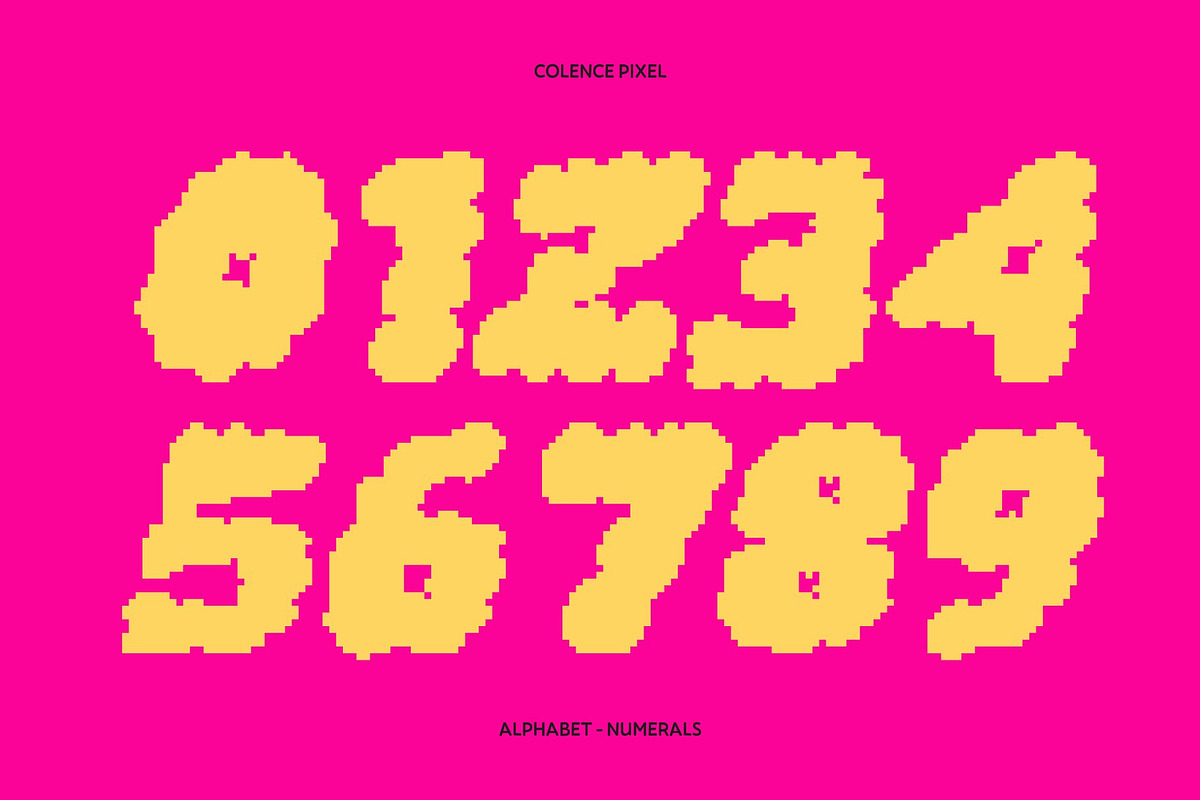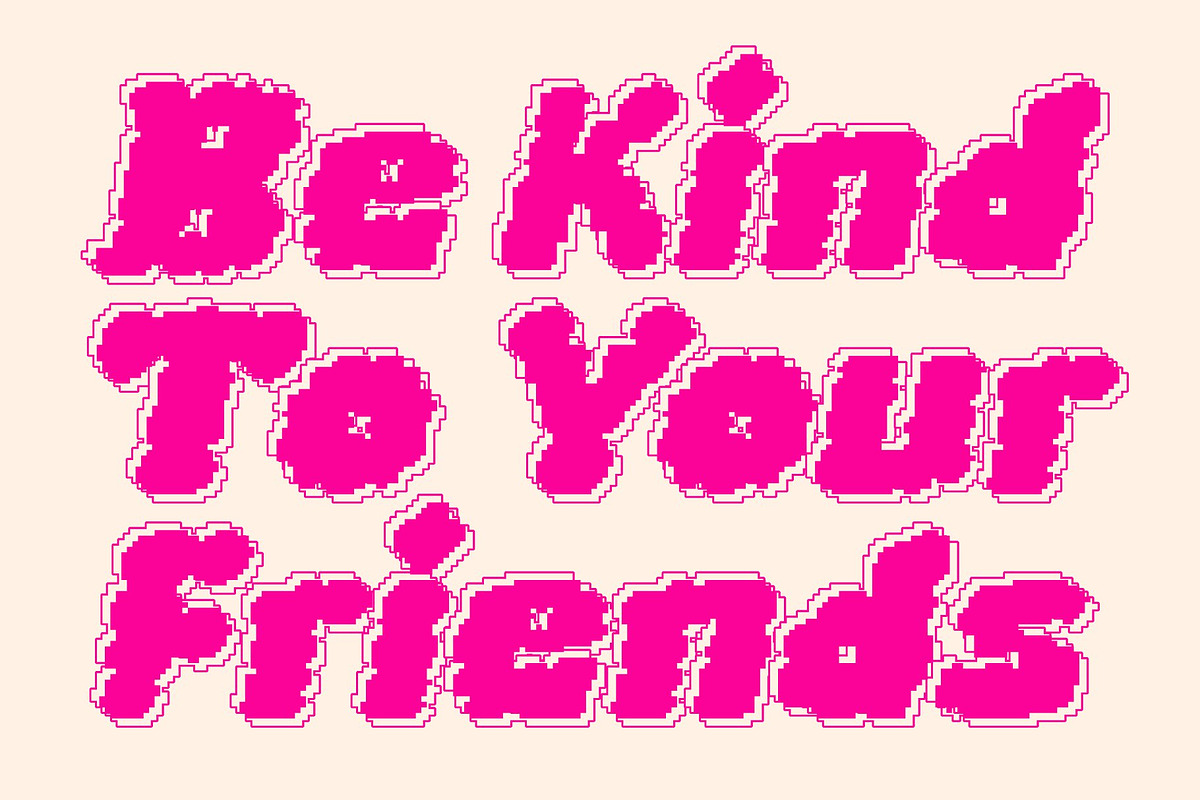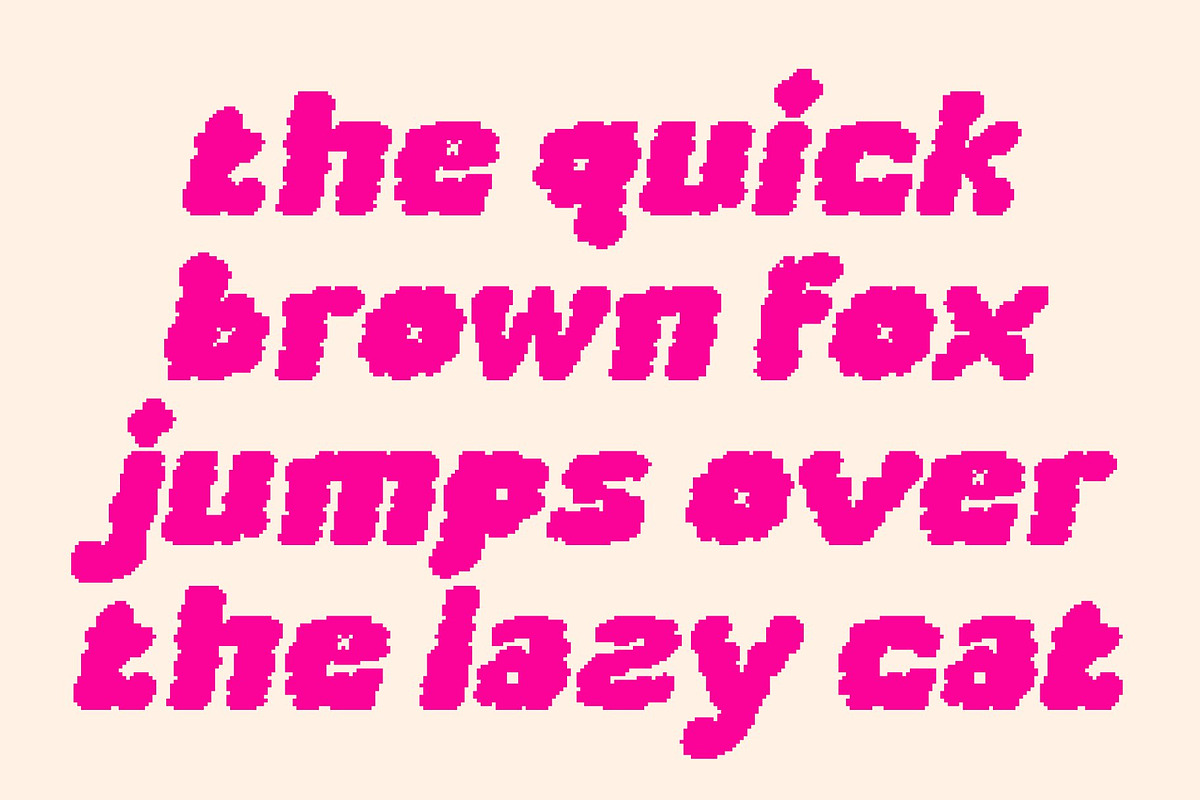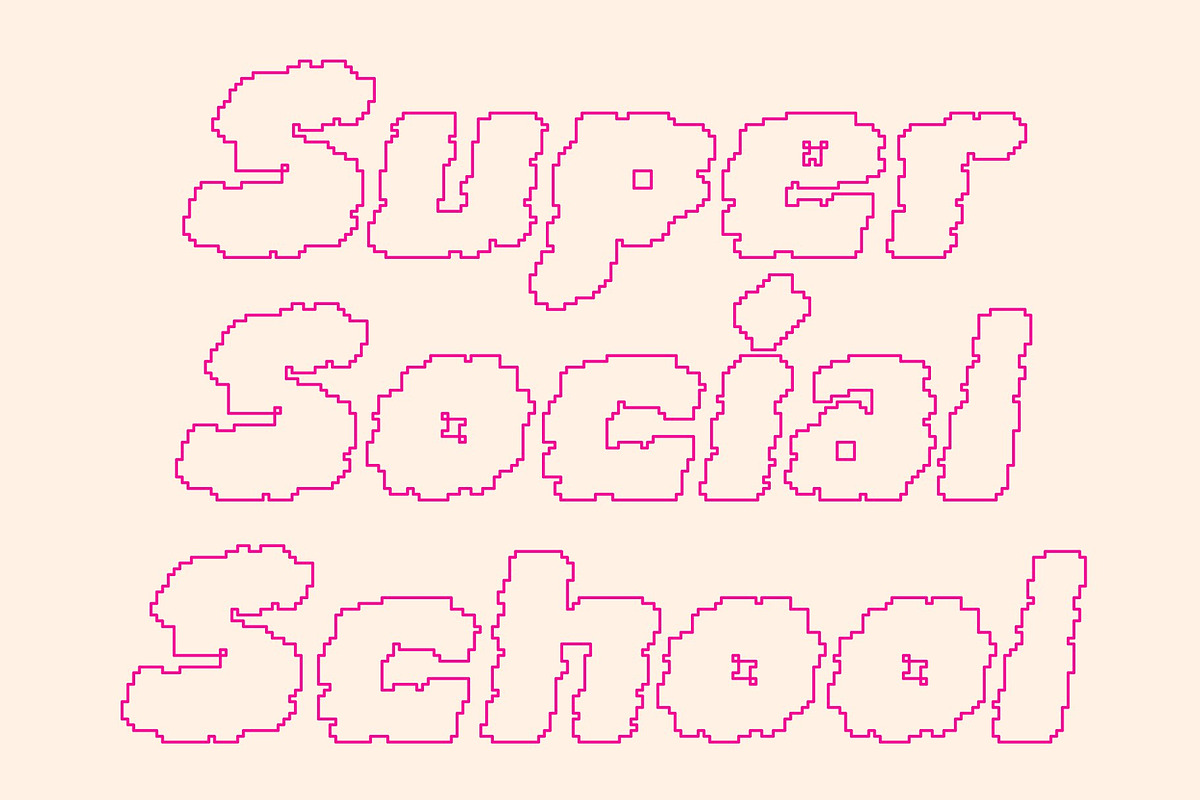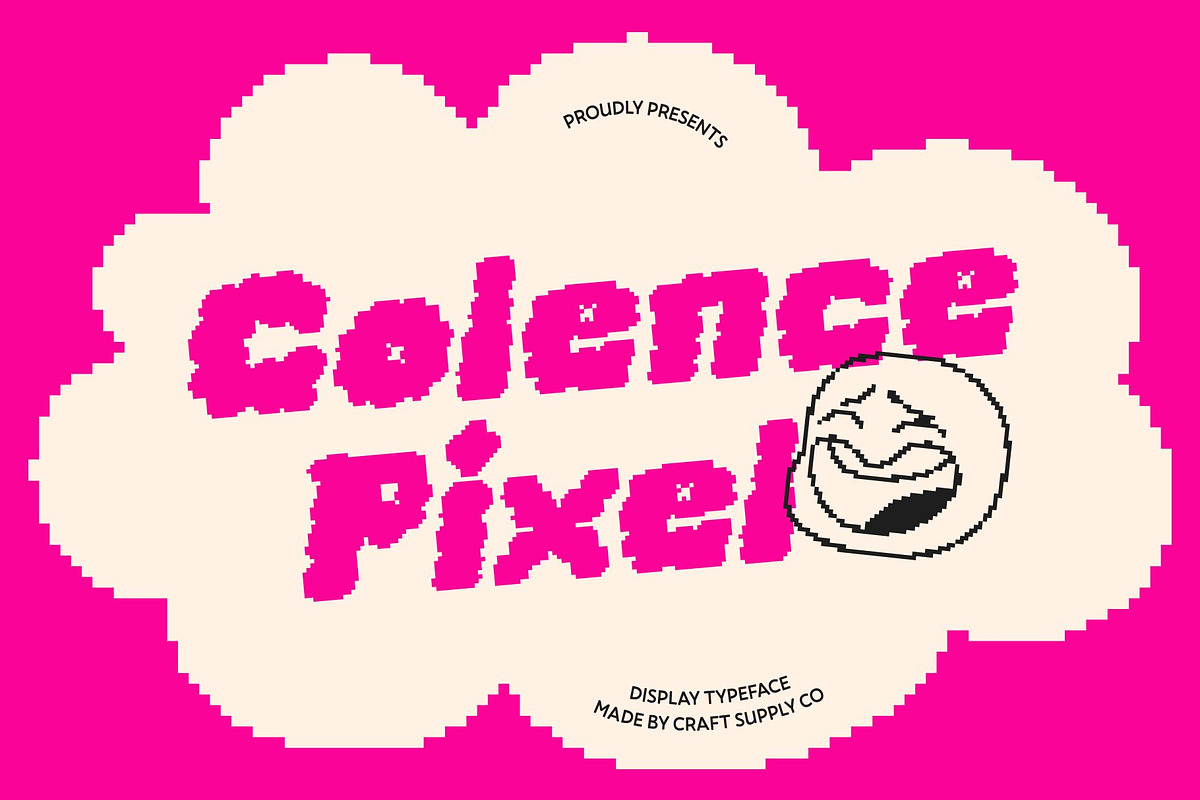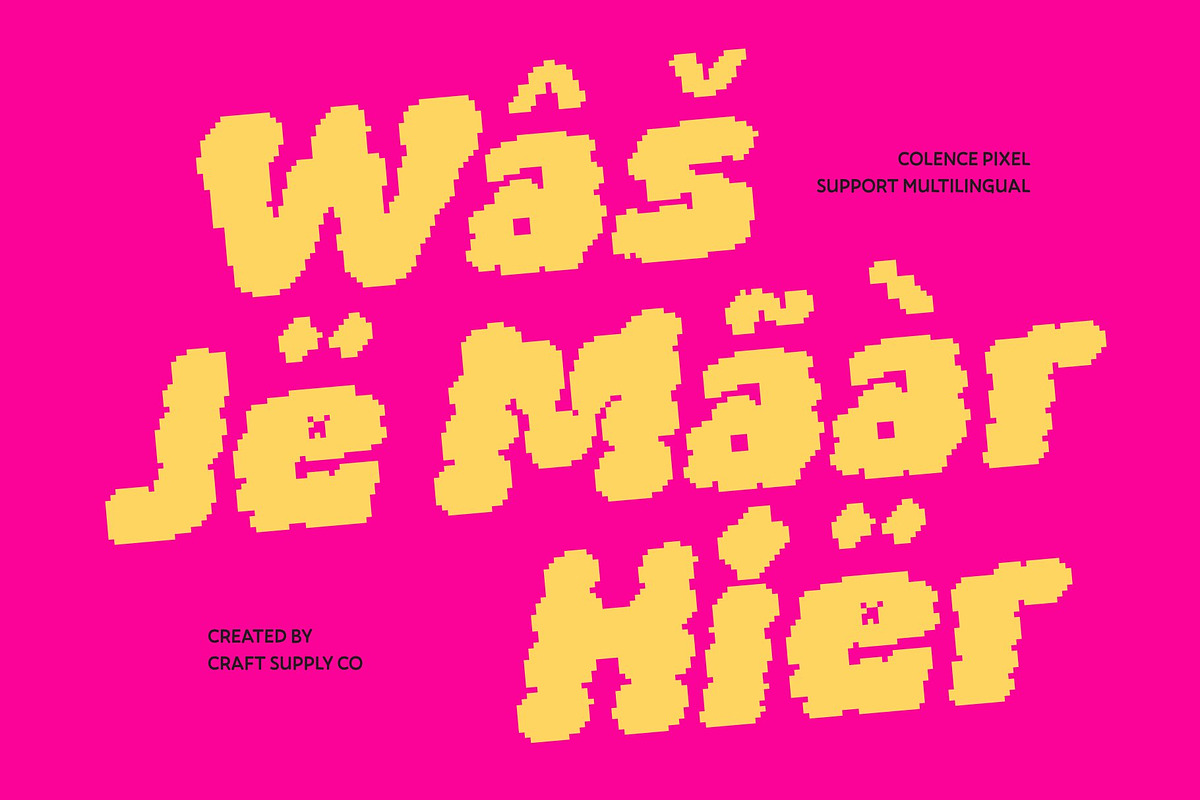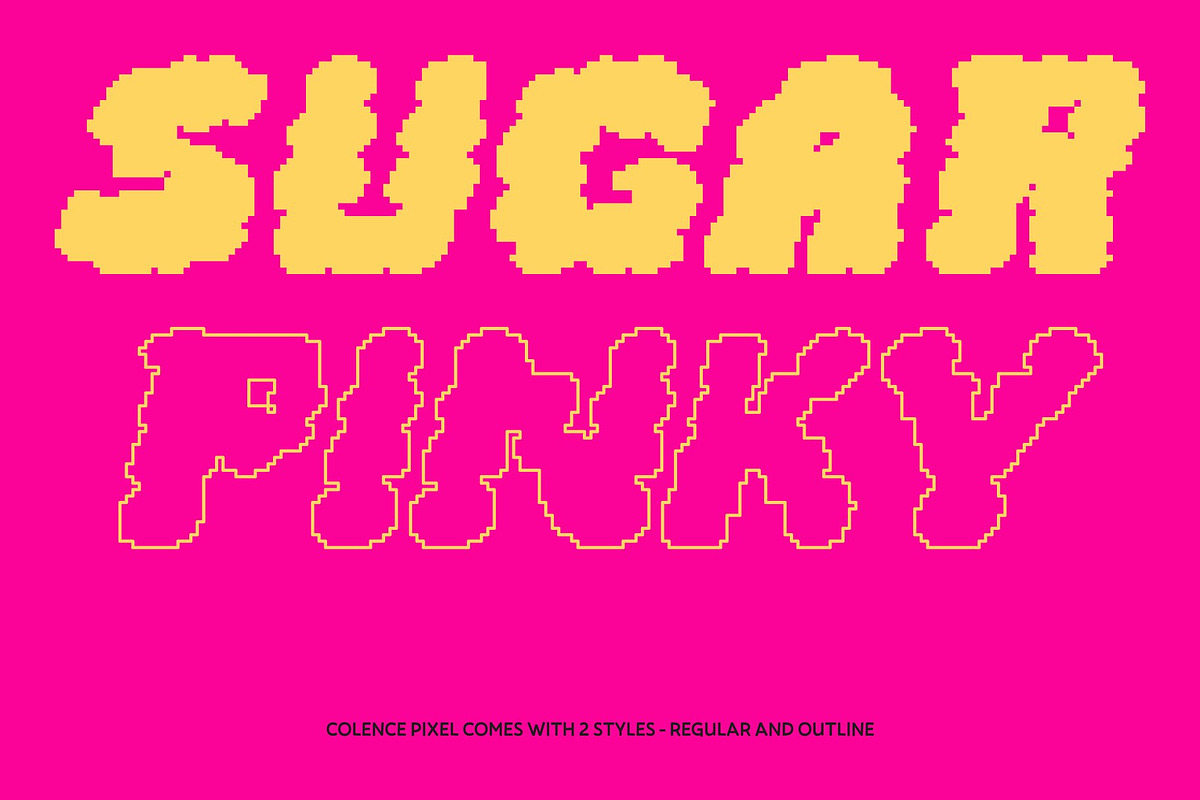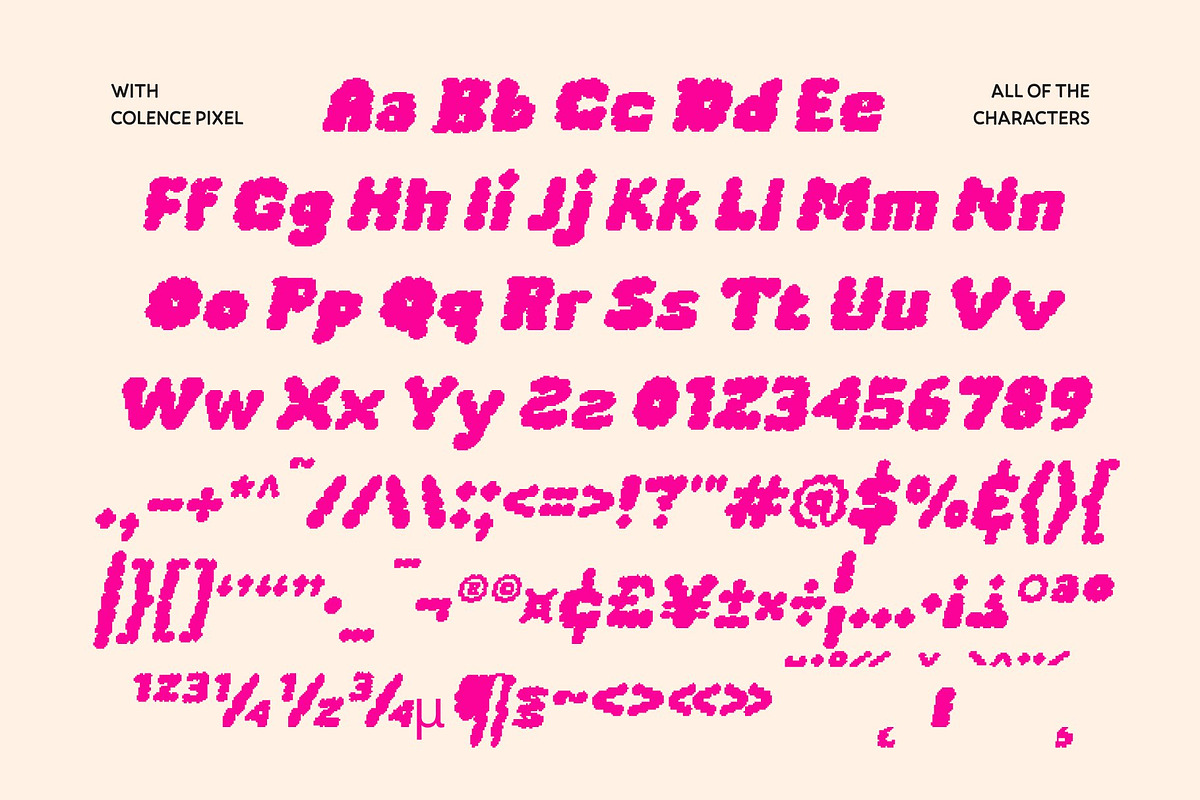
Colence Pixel
Colence Pixel – Bringing Clouds to Typography Playful Cloud Inspiration with Pixel Charm This captures the light, dreamy essence of fluffy clouds and transforms it into a delightful display typeface enhanced with subtle pixel detailing. Inspired by nature’s softness and imagination, its rounded, airy forms create a cheerful personality while crisp pixel edges introduce a modern digital twist.
Engaging Display Typeface with Soft Impact Designed to stand out, this font blends bubbly silhouettes with structured pixel precision. The result is typography that feels both whimsical and visually bold perfect for grabbing attention while maintaining clarity. It radiates joy, curiosity, and creativity in every letter.
Cloud-Like Forms with Digital Definition Each character features pillowy curves and gentle contours reminiscent of floating clouds, complemented by pixel-inspired accents that add structure and uniqueness. This harmony between softness and digital detail makes the font playful yet visually balanced.
Versatile for Fun and Imaginative Design From posters and banners to packaging, children’s branding, social media graphics, and event visuals, this font adapts effortlessly. Its cloud-inspired personality brings warmth and charm, while its pixel refinement ensures modern appeal making it ideal for designers who want typography that feels light, friendly, and unforgettable.